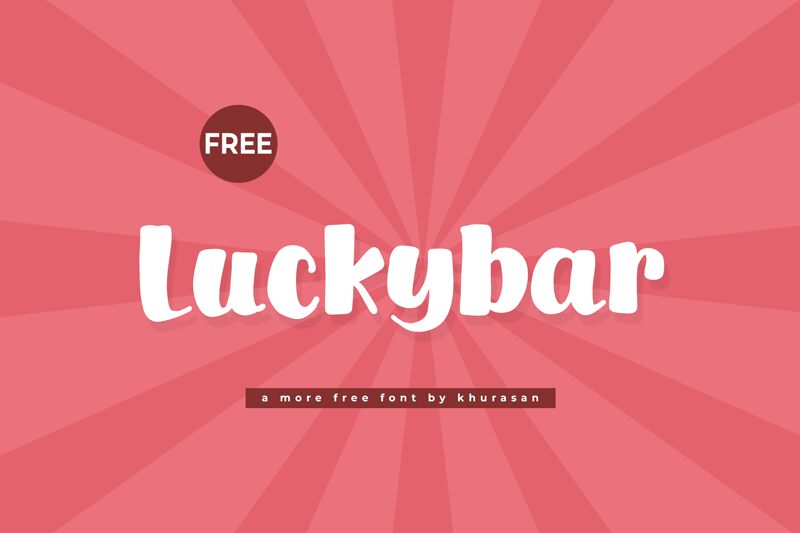
Luckybar
Luckybar font by Khurasan is a casual yet prominent free cartoon display font with a bold appearance and smooth letter edges. Tall letters come with mid-height, rounded closed counters for a youthful vibe matched only by the handwritten style the typeface itself mimics. The overall look is fun, warm and inviting, retro yet vintage — all tied in together perfectly.
That combination of characteristics makes this typeface particularly useful for informal logo ideas and branding elements. It can also be used in book covers (especially children’s), video games design, movies posters, school projects or worksheets, magazine/newspaper titles etc.